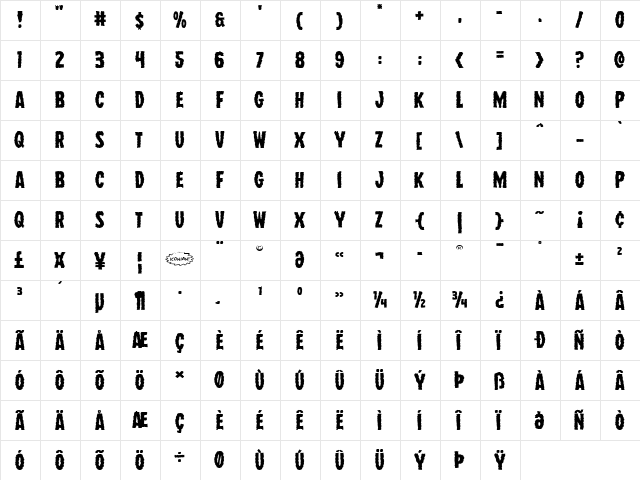
Wolf Brothers Expanded Expanded
Design Context for Wolf Brothers Expanded Typeface
Wolf Brothers Expanded is a composed and adaptable typeface that performs quietly and consistently across a wide range of design contexts.
Pro Tip: Use Wolf Brothers Expanded in both headline and body roles to test its range before committing to a single application.